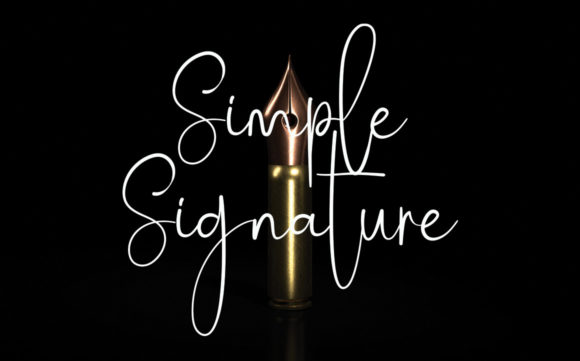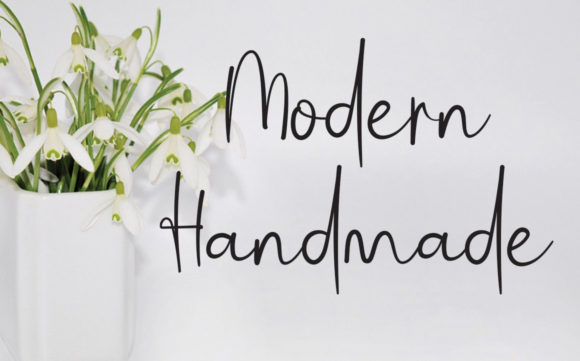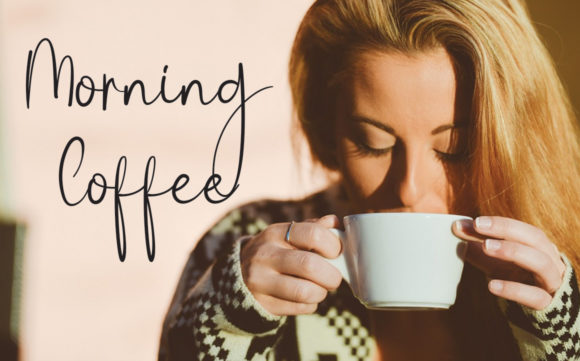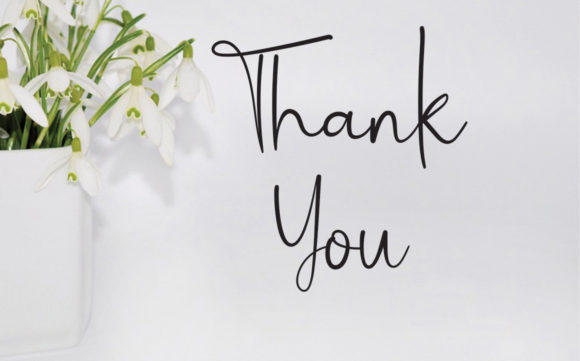
Pinky Font
About Pinky Font
“Pinky” is a delightful and flowing handwritten font that adds a touch of whimsy and elegance to a wide range of design projects. Its playful yet sophisticated appearance makes it versatile and suitable for various applications.
When used in wall displays, “Pinky” can create eye-catching and visually engaging compositions. Its flowing and unique letters can add a sense of charm and creativity to the display, making it a focal point that captures attention.
For wedding invitations, “Pinky” can bring a sense of romance and personality to the design. Whether used for headlines, names, or other elements, this font can convey a sense of joy and celebration, setting a positive tone for the event.
In branding and social media, “Pinky” can help establish a distinctive and memorable brand identity. It can be used for logos, social media post logos, and advertisements that reflect a playful and approachable image.
When applied to product packaging and designs, “Pinky” can infuse a sense of fun and uniqueness into labels, packaging, and product artwork. Its handwritten and creative feel can resonate with consumers seeking something charming and out-of-the-ordinary.
For photography and watermarks, “Pinky” can create elegant and artistic watermarks that enhance the aesthetics of images. Its flowing and graceful appearance can complement the visual appeal of photographs.
Whether for invitations, stationery, labels, or any project requiring impressive typography, “Pinky” brings a sense of joy and creativity to the design. Its playful and elegant nature makes it a versatile choice for projects that aim to evoke a sense of delight and artistic expression.